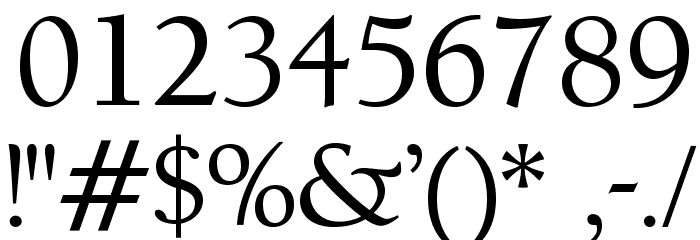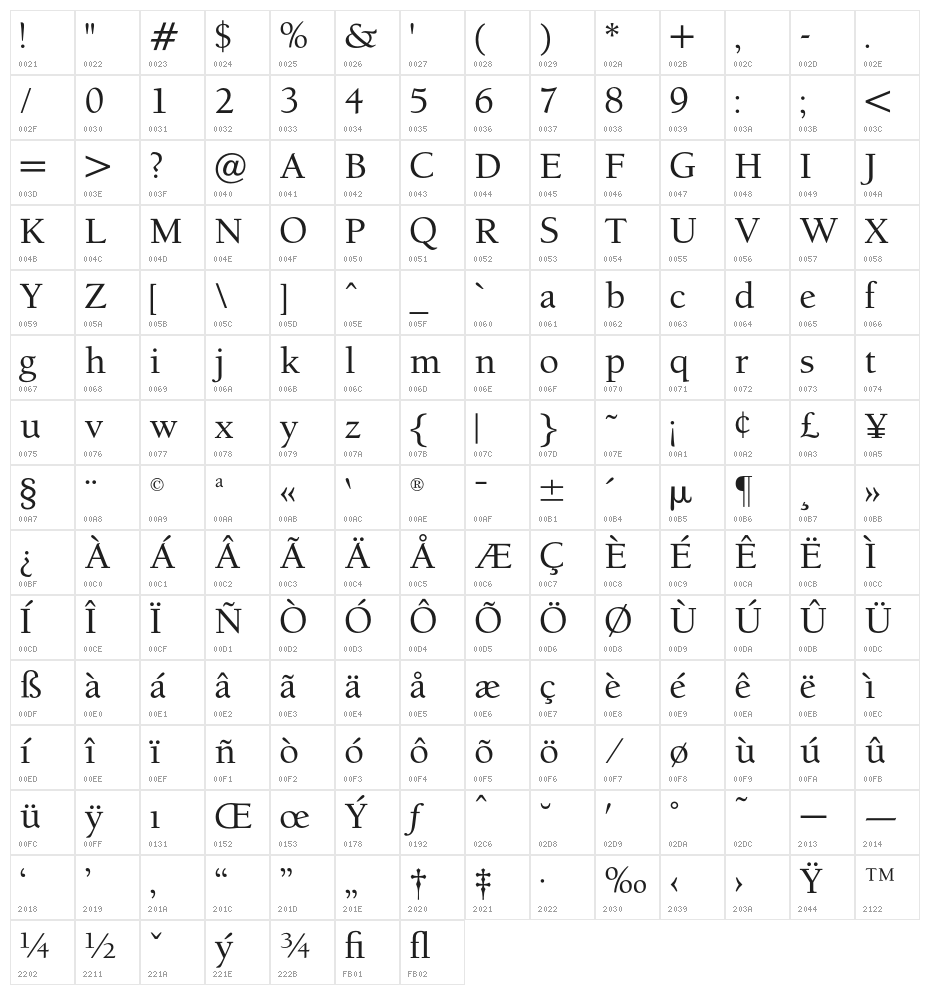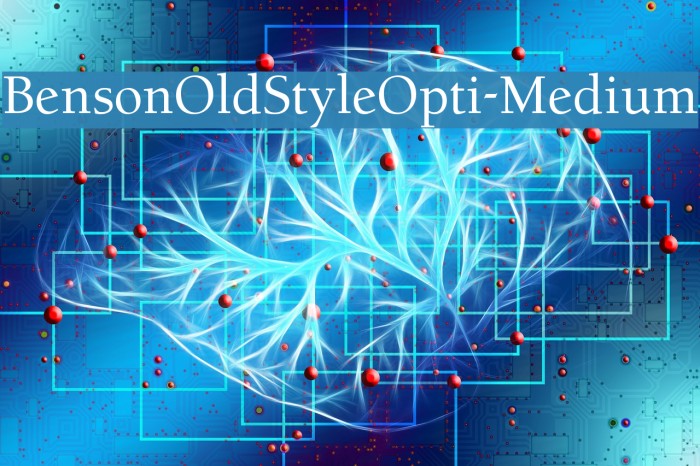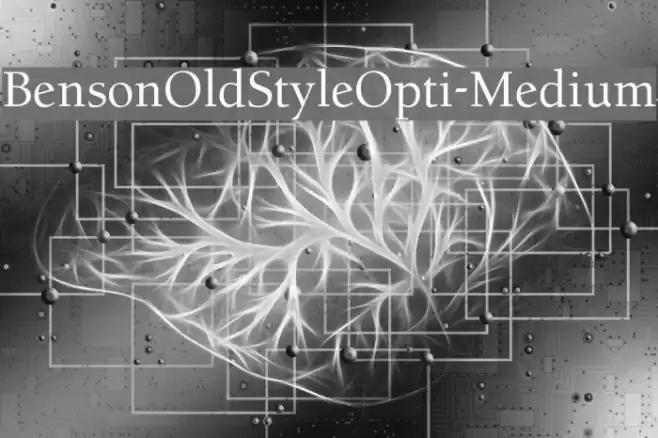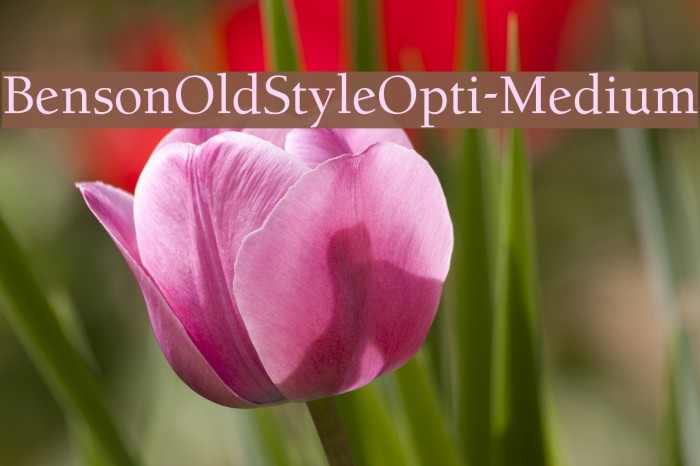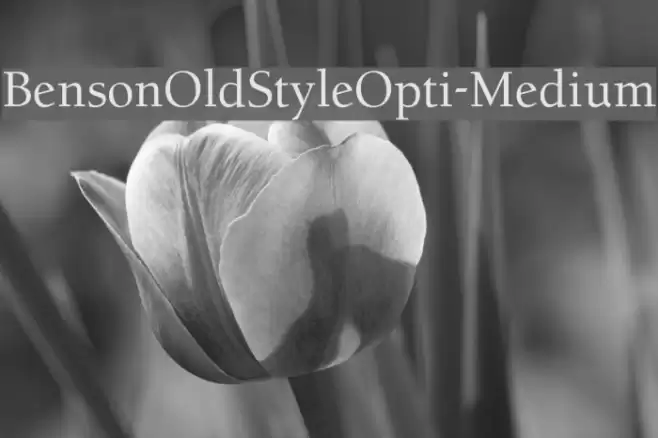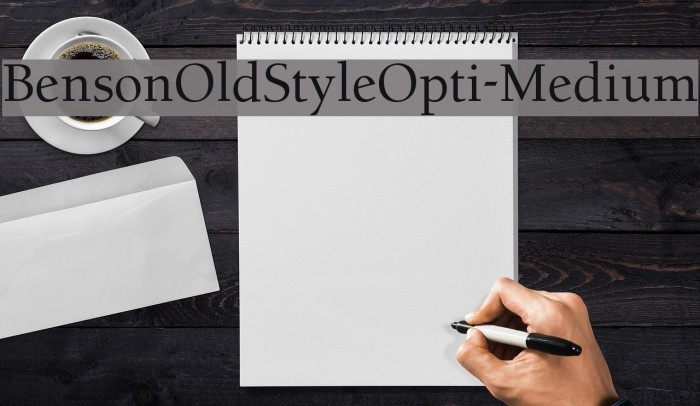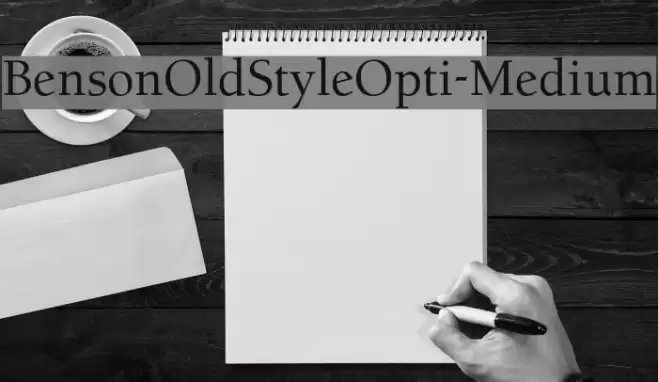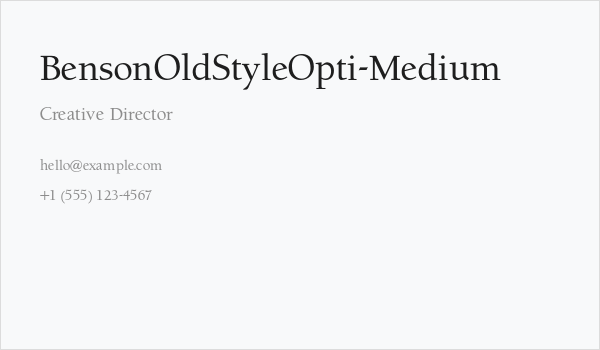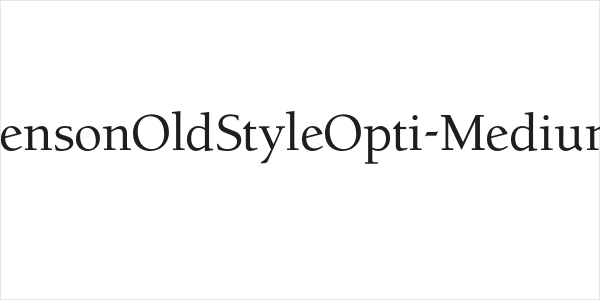
BensonOldStyleOpti-Medium Font
BensonOldStyleOpti-Medium Description
This typeface exudes a classic elegance with its refined serif design, characterized by moderate stroke contrast and well-defined serifs. The uppercase letters are stately and balanced, while the lowercase letters maintain a harmonious flow, making it suitable for both formal and traditional contexts. The numerals are clear and proportional, ensuring readability. Special characters are crafted with attention to detail, enhancing the font's versatility. Its overall appearance is timeless, offering a sense of sophistication and reliability.
| Use Case | Body text, Headlines, Editorial design |
| Proposed Projects | Ideal for book publishing, formal invitations, branding for luxury products, and editorial design. |